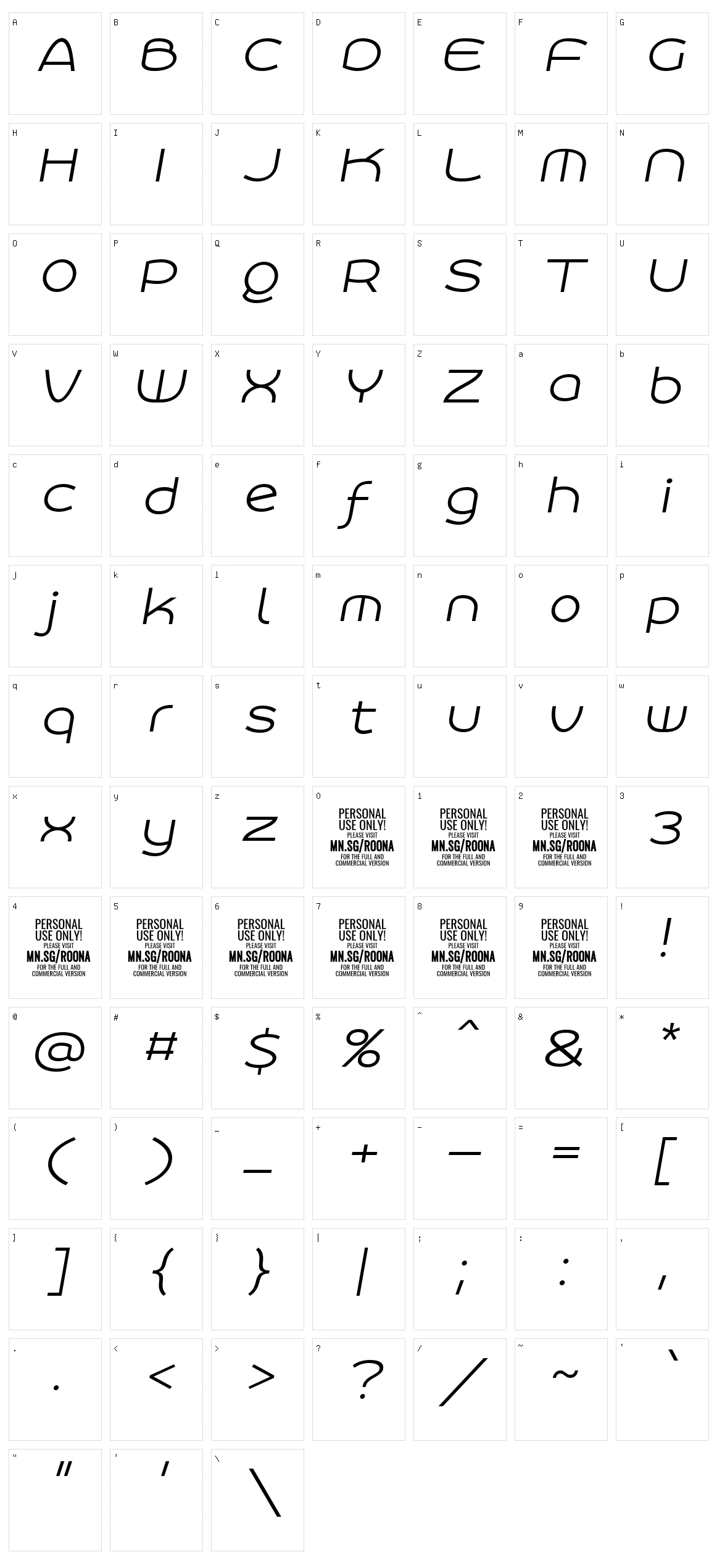
Roona Sans is a modernist typeface with wide curves.
Drawn and created by Måns Grebäck in 2018, this space aged type comes in ten different styles;
Thin, Light, Medium, Bold and Black - and each weight as italic.
The font has support for hundreds of languages, ligatures and high-quality vectors.